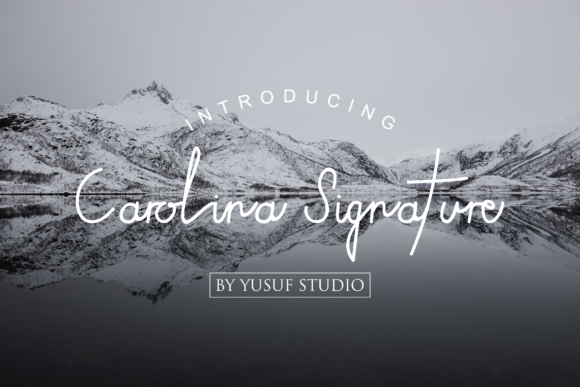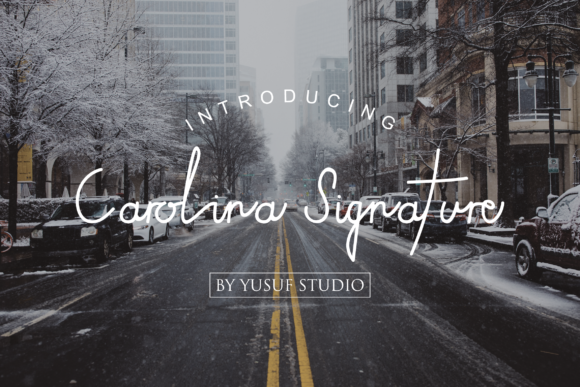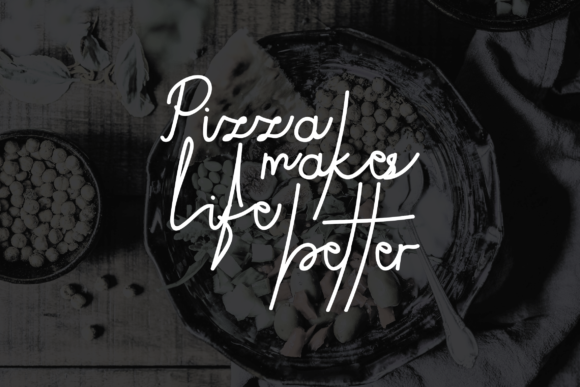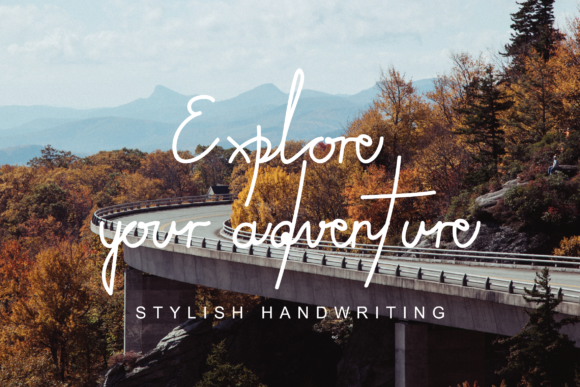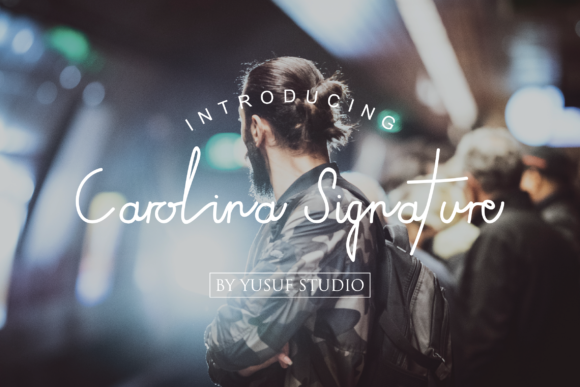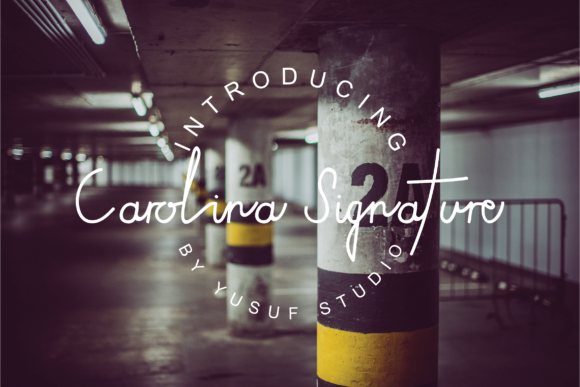
The Perfect Handwritten Touch: Discovering the Carolina Signature Font
Have you ever been brainstorming ideas for a new project, and suddenly, a spark of creativity hits you? Maybe it’s the perfect phrase for a social media post, or the ideal font for a logo. Whatever it is, it’s that feeling of pure excitement and inspiration that drives us to create something truly special. For designers, this moment is all too familiar, and it’s exactly what led us to discover the stunning Carolina Signature Font.
With its elegant and classy style, the Carolina Signature Font is the perfect addition to any project that requires a handwritten touch. From branding and logos to wedding designs and social media posts, this font is the ultimate tool for designers looking to add a personal and sophisticated feel to their work. Whether you’re a seasoned pro or just starting out, the Carolina Signature Font is an invaluable asset that’s sure to elevate your designs and leave a lasting impression.
Carolina Signature Font Key Features
- Font Family: Carolina Signature Font is a beautiful, elegant script font.
- Unique Characteristics: The font features flowing, cursive lines with subtle flair at the ends of letters, creating a sophisticated and elegant look.
Carolina Signature Font Review
Overall, I think the Carolina Signature Font is a solid choice for designers looking for a classic, elegant feel. ✨ It’s versatile and can be used for a variety of projects, from branding to advertising.
Here are some of its strengths:
- ✨ Elegant and sophisticated feel
- ✨ Highly legible, making it perfect for body text
- ✨ Available in multiple weights, making it easy to create hierarchy
- ✨ Works well on both digital and print platforms
However, I do have a few concerns:
- ⚠️ Limited to a relatively small set of ligatures and swashes
- ⚠️ Not ideal for display headlines, as it can feel a bit too formal
- ⚠️ Some users may find it too ornate for certain projects
Overall, I think the Carolina Signature Font is a great choice for designers who want to create a timeless, sophisticated look. While it may not be perfect for every project, it’s definitely worth considering for your next design endeavor.
The Carolina Signature Font is ideal for use in a variety of contexts, including:
- Personalized gifts and keepsakes
- Special occasion graphics and decorations